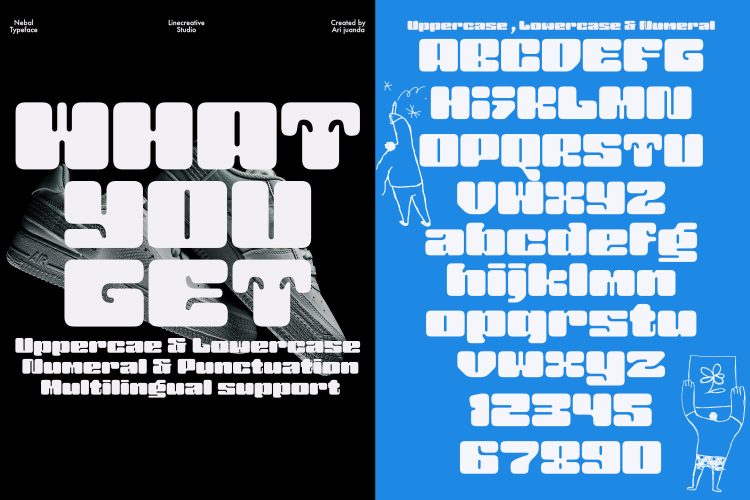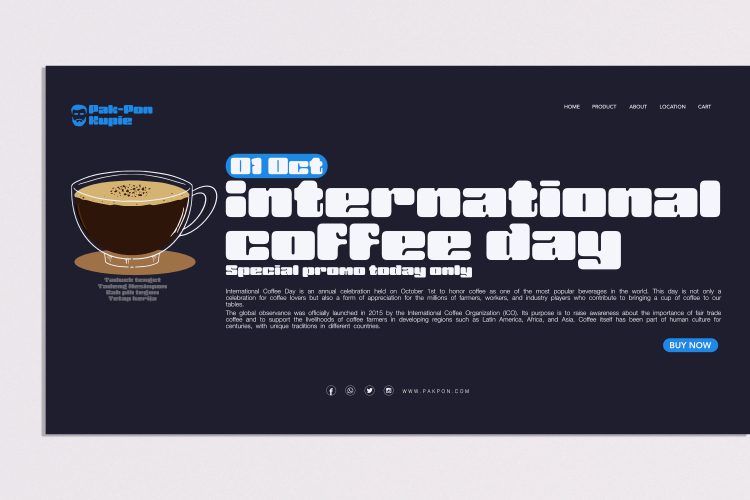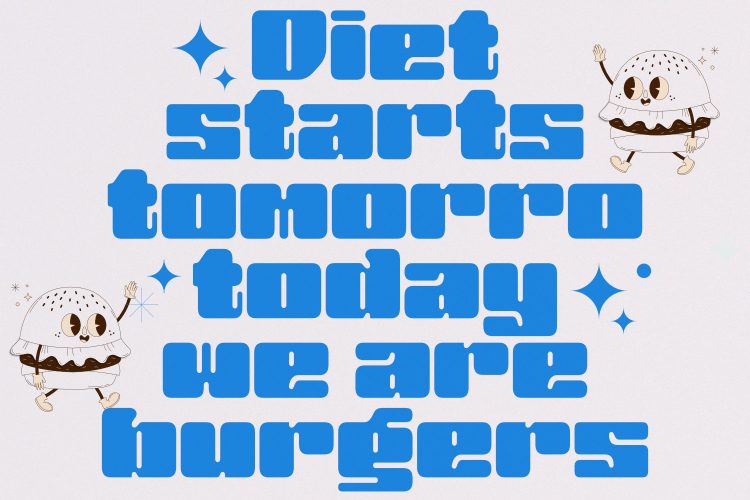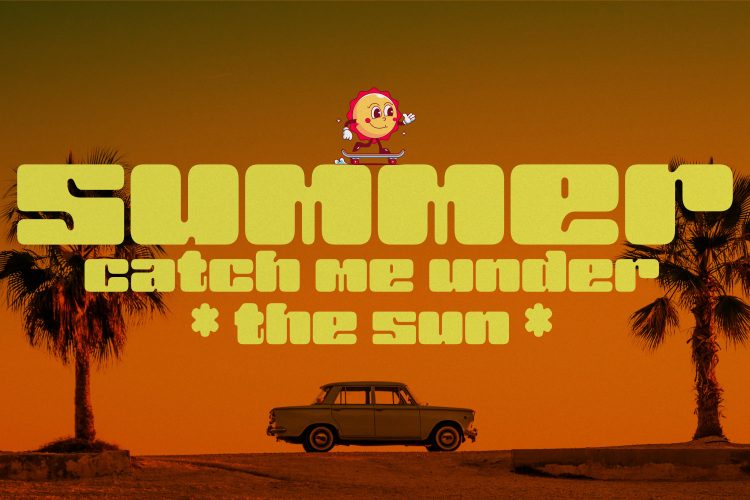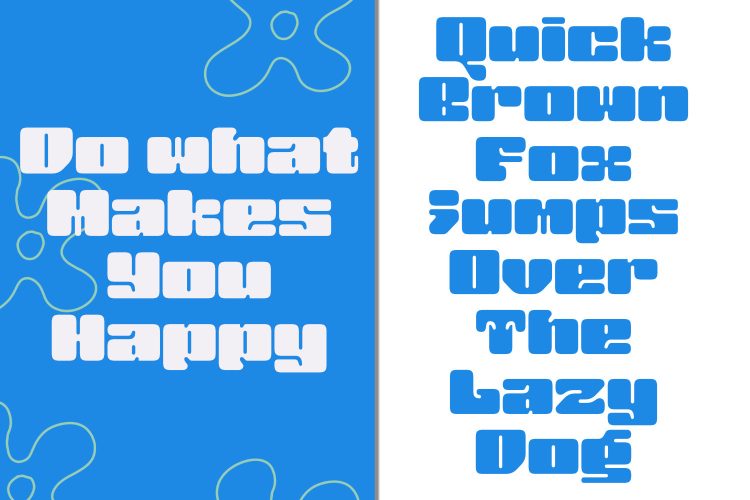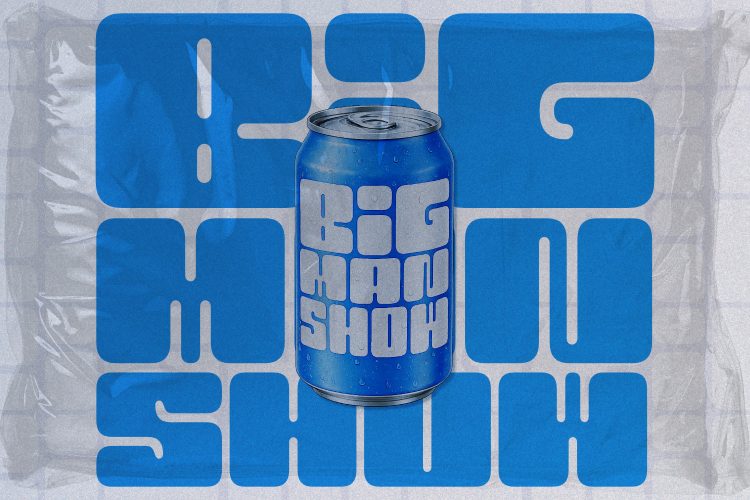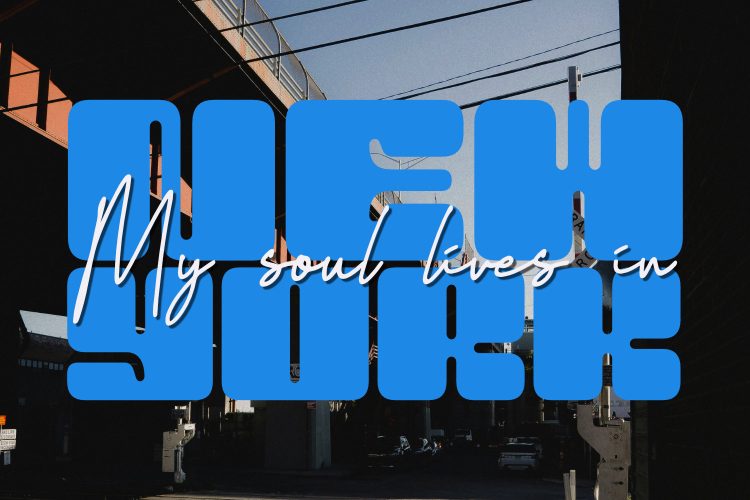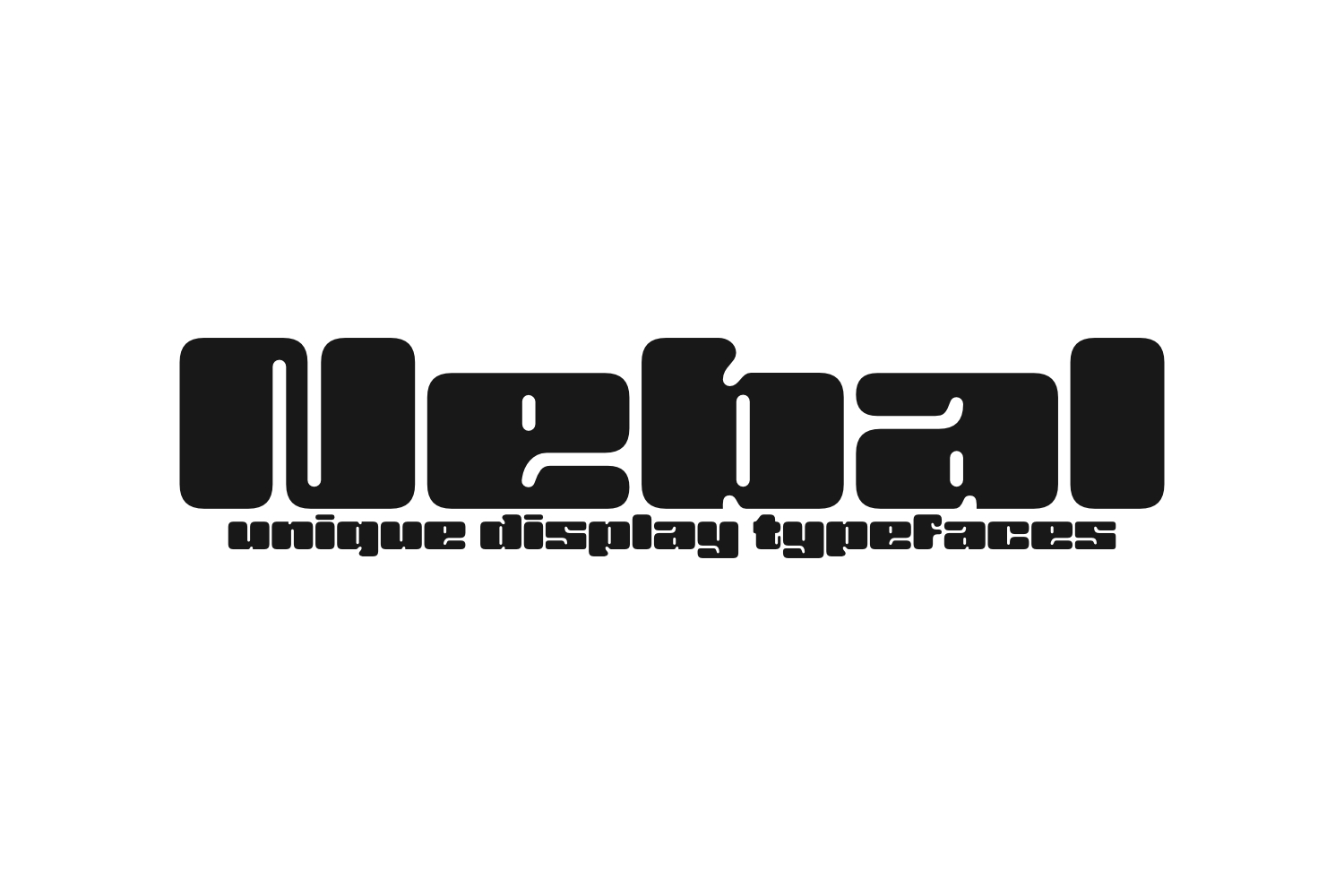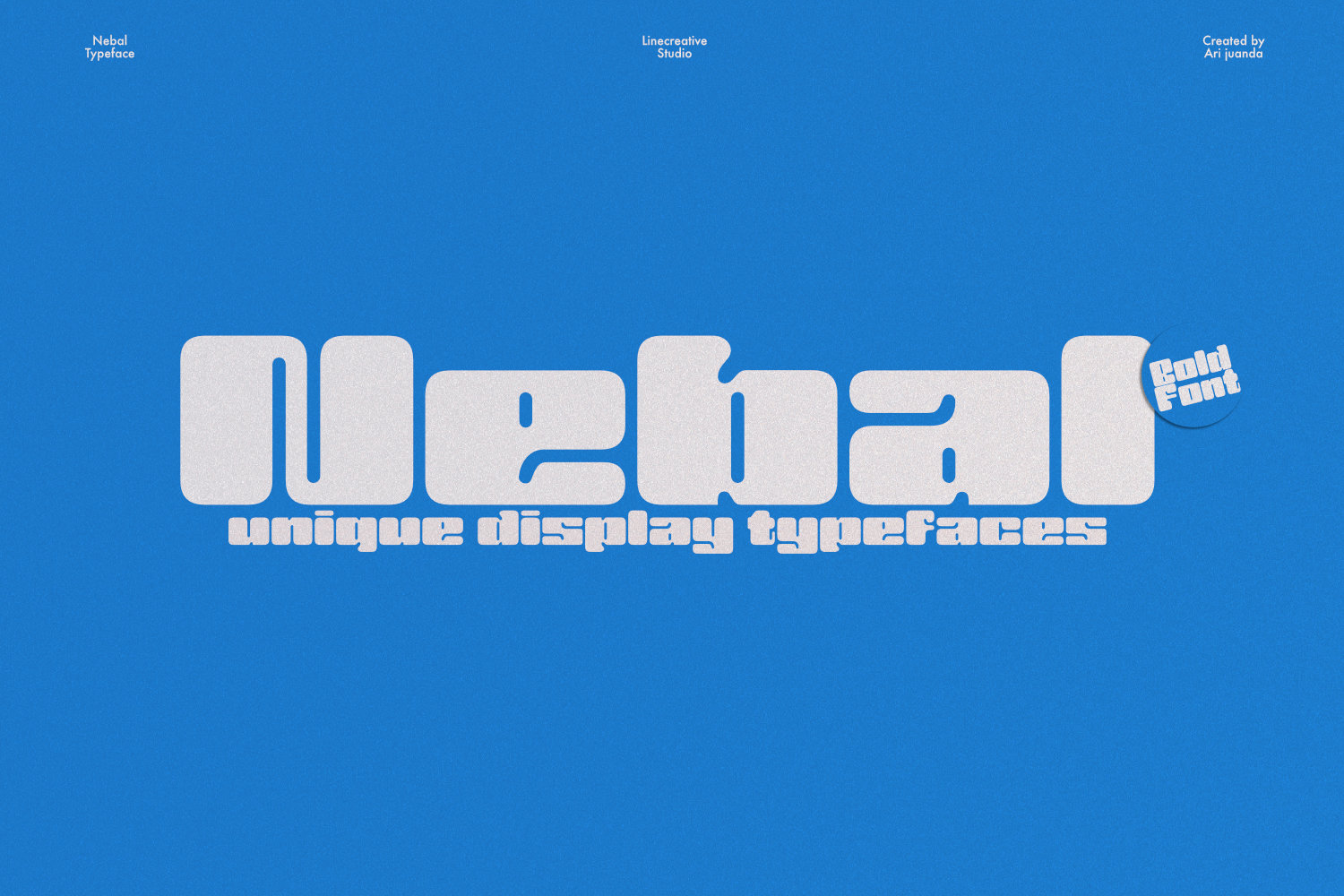
Nebal-Bold Rounded Typeface
Nebal is a bold display typeface designed with a chunky, playful, and highly eye-catching style. Inspired by retro bubble lettering and modern geometric shapes, this font delivers a strong visual impact while maintaining a fun and friendly personality. Its thick curves and rounded corners create a smooth, unique appearance that instantly stands out in any design.
– Multilingual support including characters such as ä, ö, ü, Ä, Ö, Ü, ß, ¿, and ¡